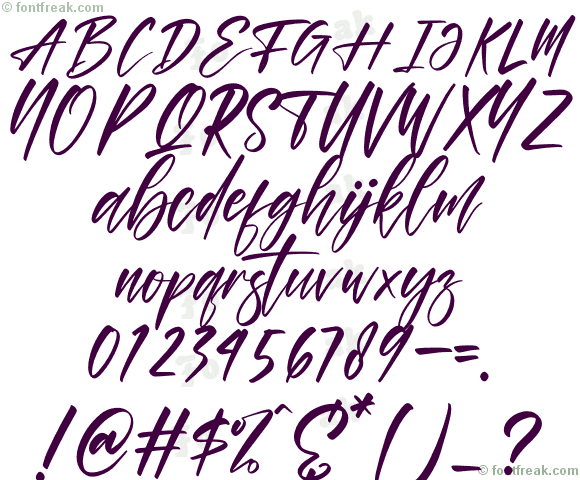
Alisteria
Alisteria, designed by Perspectype Studio in 2021, is a captivating script font that brings a touch of elegance and creativity to any design project. This font features a fluid, handwritten style that exudes warmth and personality. Its stroke weight varies gracefully, creating a sense of movement and dynamism, while the moderate contrast in its letterforms adds a distinctive flair. The spacing is thoughtfully balanced, ensuring readability while maintaining an artistic feel.
Alisteria is perfect for a variety of applications. It shines in wedding invitations, where its romantic curves can set the tone for a beautiful celebration. Its whimsical nature also makes it an excellent choice for greeting cards, allowing messages to resonate with heartfelt sentiments. Additionally, Alisteria can elevate restaurant menus, giving a sophisticated yet inviting vibe that enhances the dining experience. For content creators, this font is ideal for blog headers and social media graphics, providing a unique touch that captures attention.
This font targets graphic designers, small business owners, and content creators seeking to infuse their work with personality and charm. Alisteria's versatility ensures that it can cater to a broad audience, appealing to anyone looking to make a statement through typography.
What truly sets Alisteria apart is its ability to blend elegance with a casual, approachable feel. It strikes the perfect balance between sophistication and playfulness, making it a valuable asset for any designer’s toolkit. With its available freeware license, the Alisteria font free download offers an accessible option for those wanting to enhance their projects with a distinctive touch. Explore the beauty of Alisteria and let it inspire your next creative endeavor.